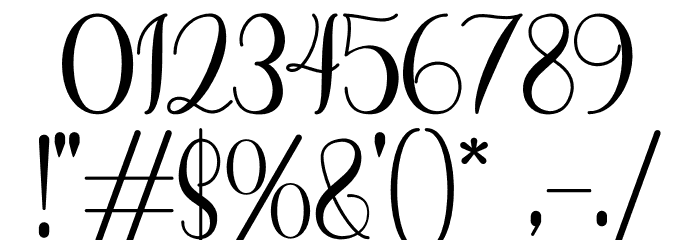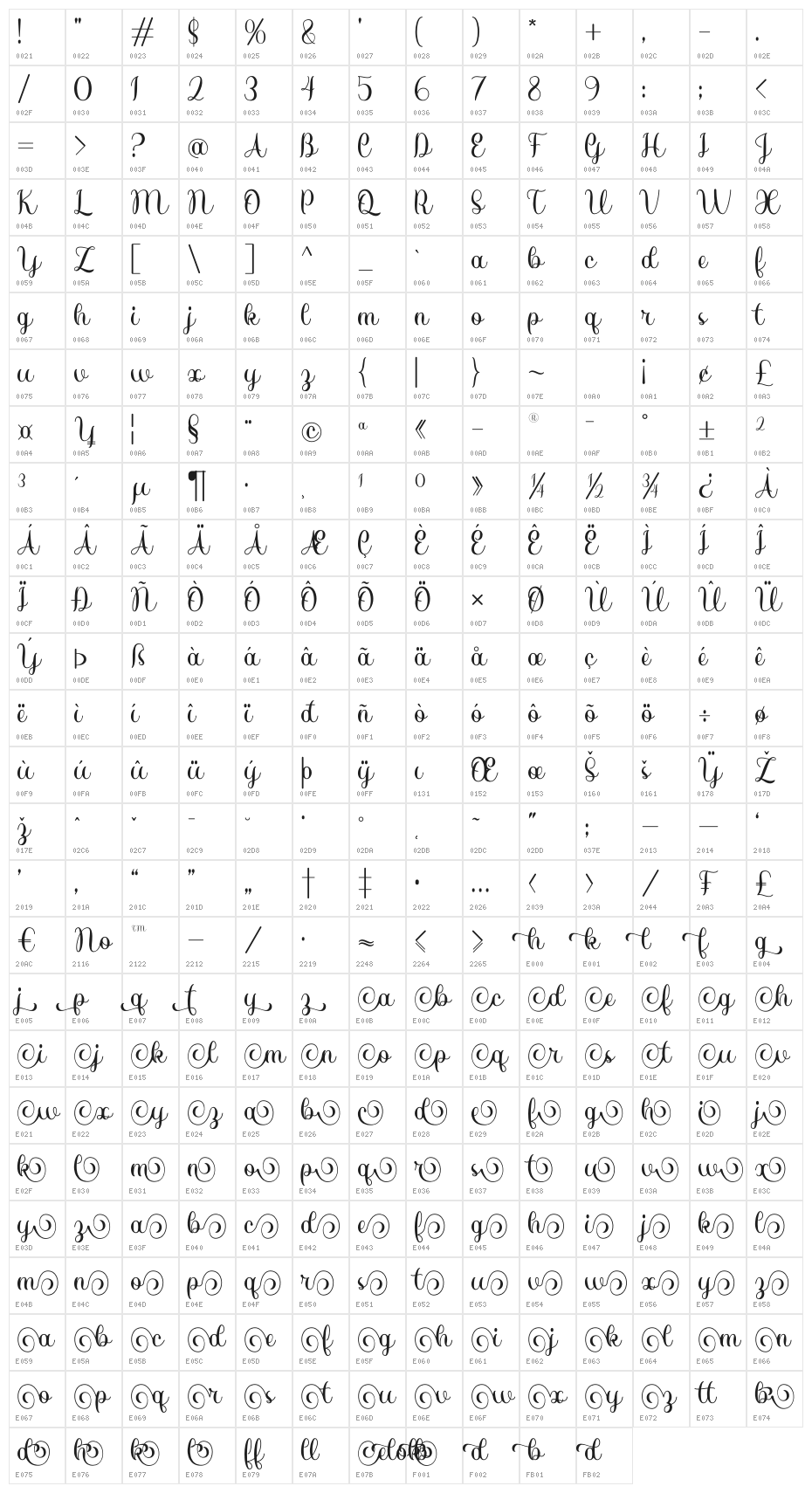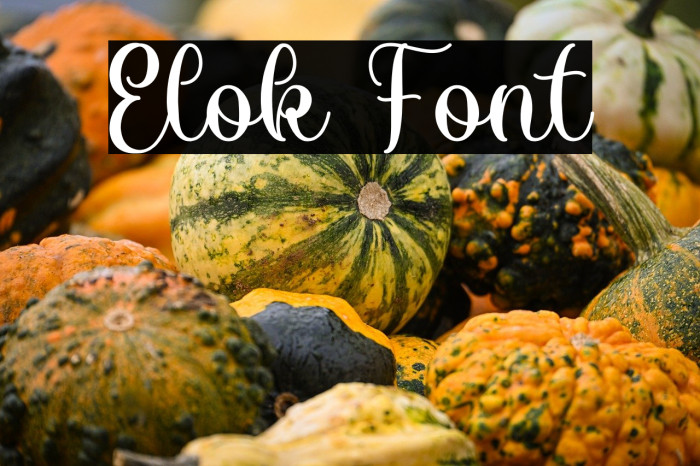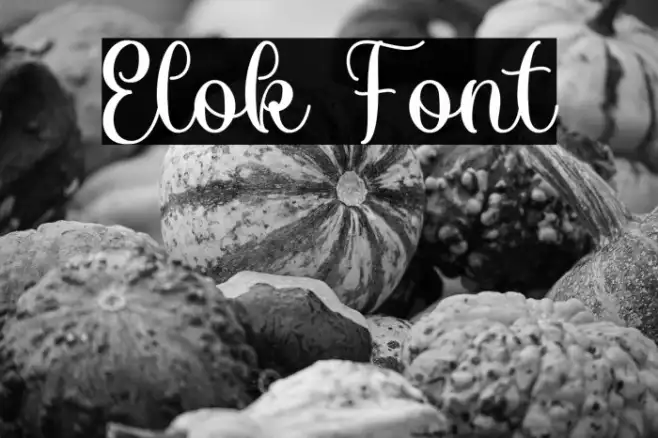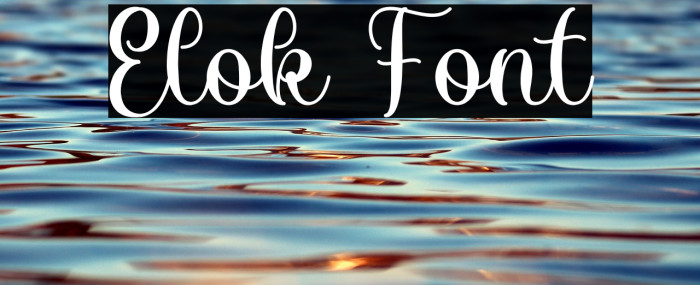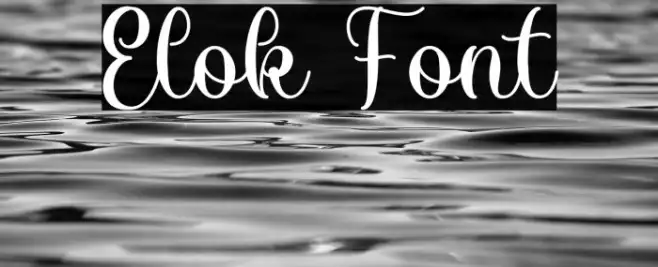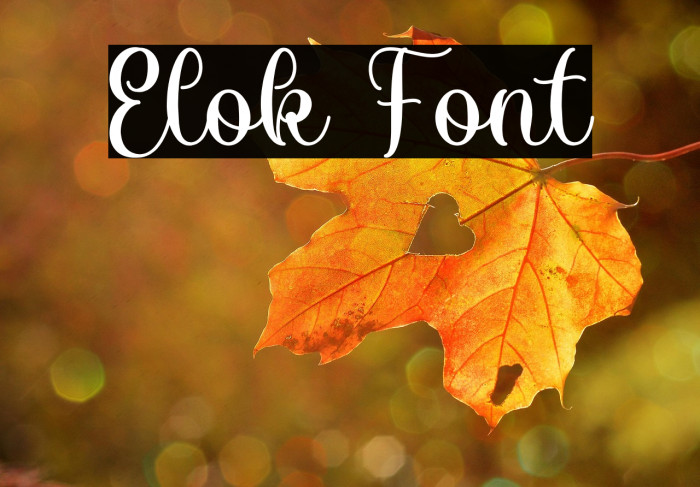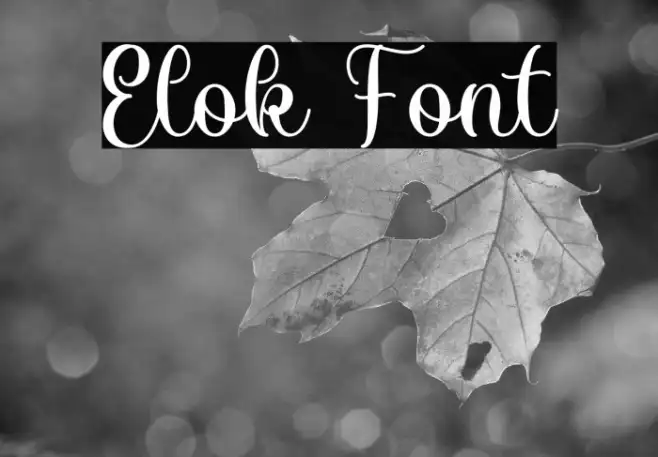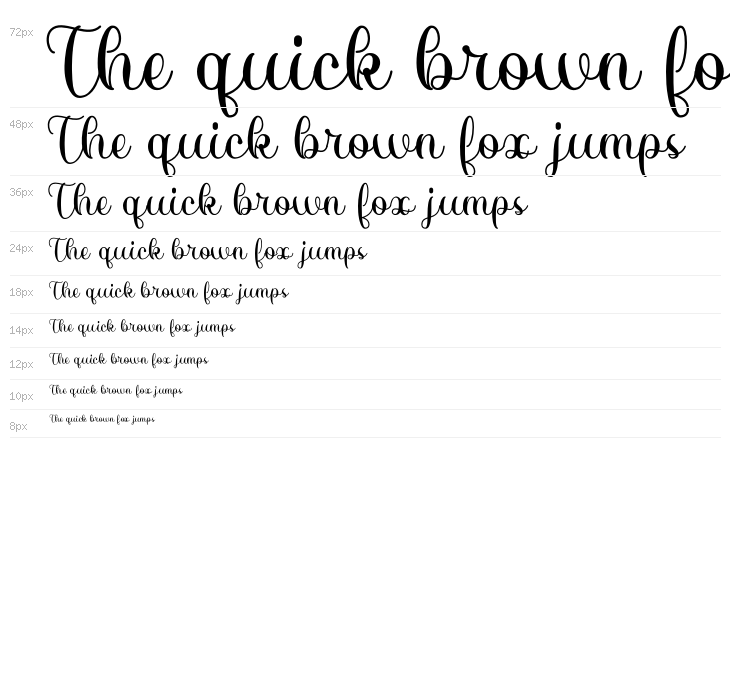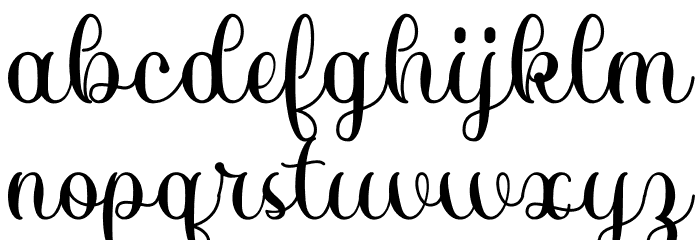
Elok Font
Elok Description
This font features a flowing, cursive style that exudes elegance and sophistication. The uppercase letters are characterized by their sweeping curves and loops, giving them a graceful appearance. The lowercase letters maintain a consistent flow, with each character seamlessly connecting to the next, reminiscent of traditional calligraphy. The numerals are distinct yet harmonize well with the overall script style, maintaining the same fluidity. Special characters are thoughtfully designed to complement the alphabet, ensuring a cohesive look across all text. This font's artistic flair makes it ideal for projects that require a touch of class and creativity.
| Overall Style | Elegant, Artistic |
| Use Case | Headlines, Invitations, Artistic projects |
| Proposed Projects | Ideal for wedding invitations, elegant branding, greeting cards, and artistic posters. |